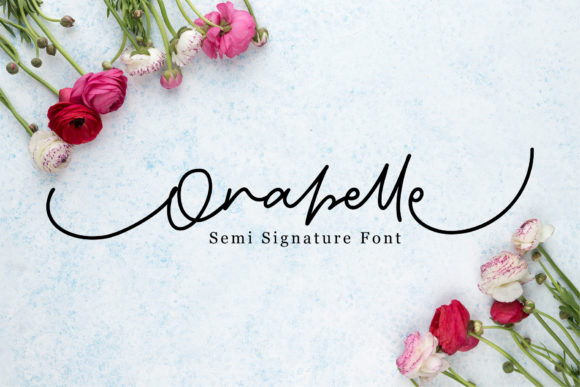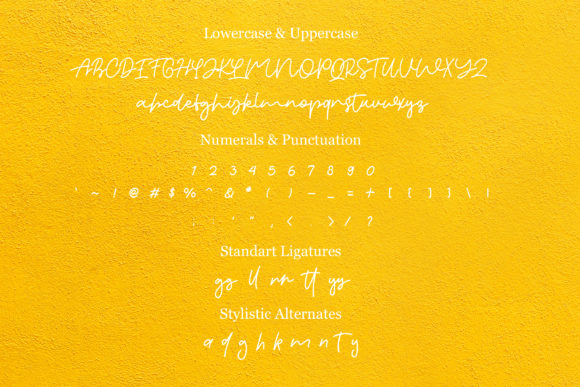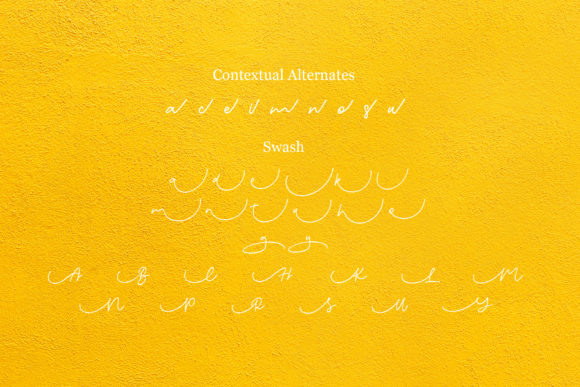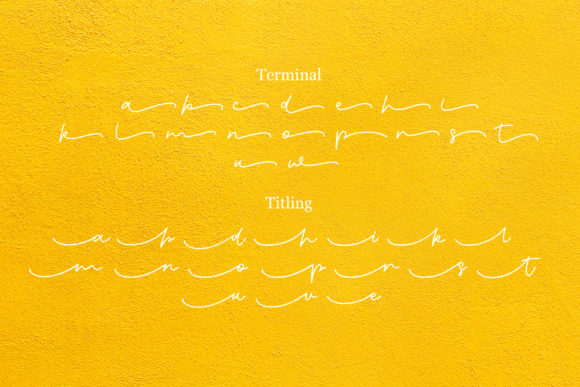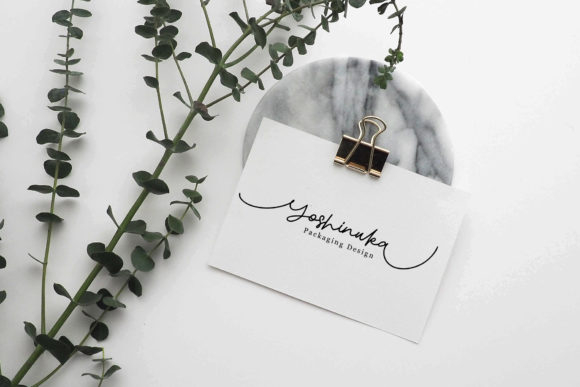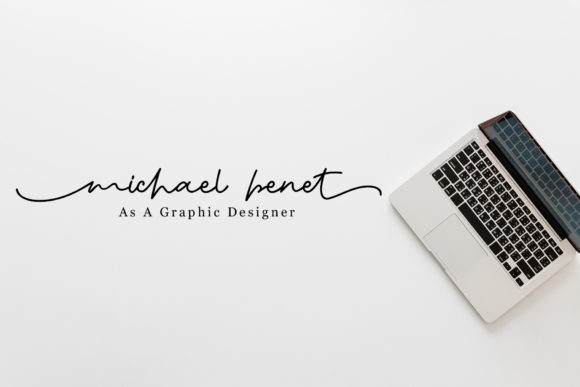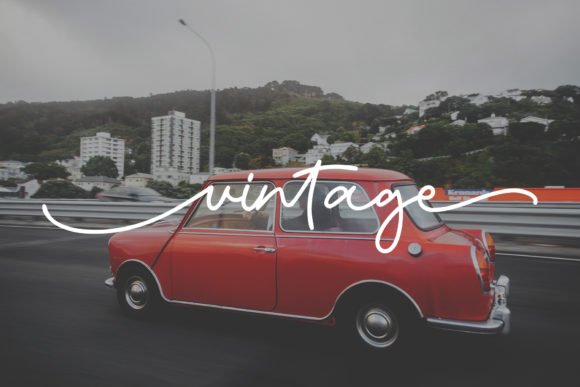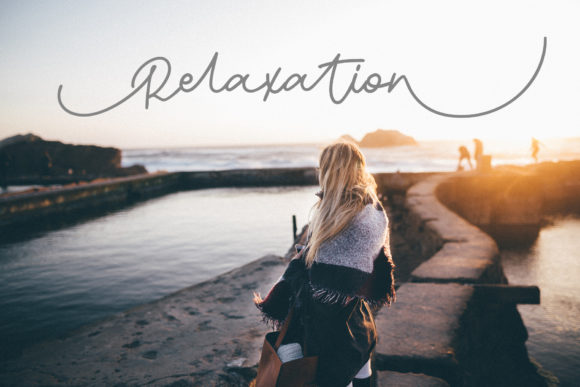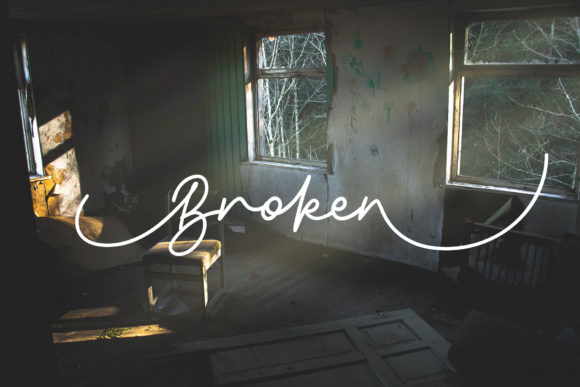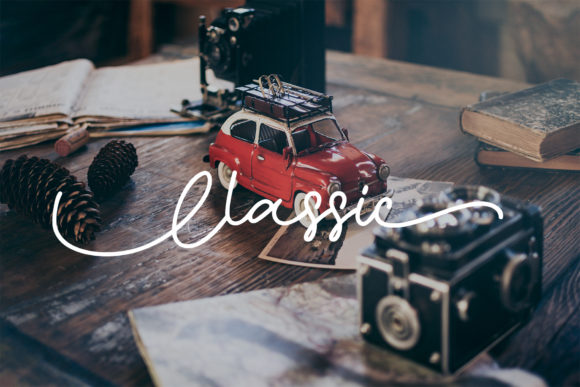
Orabelle Font
About Orabelle Font
The Orabelle is an amazing Orabelle font. It has an elegant style and includes beautiful swashes.
It’s perfect for signatures, logos, posters, wedding stationary, and much more!